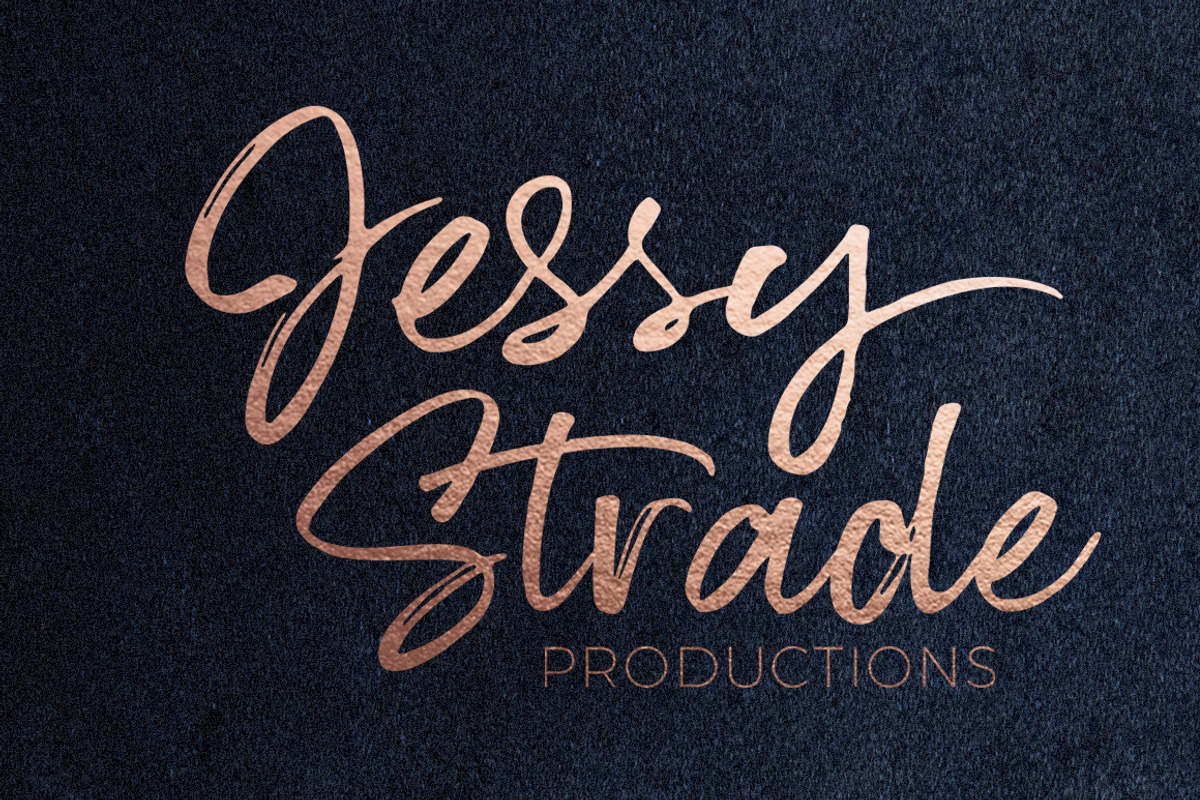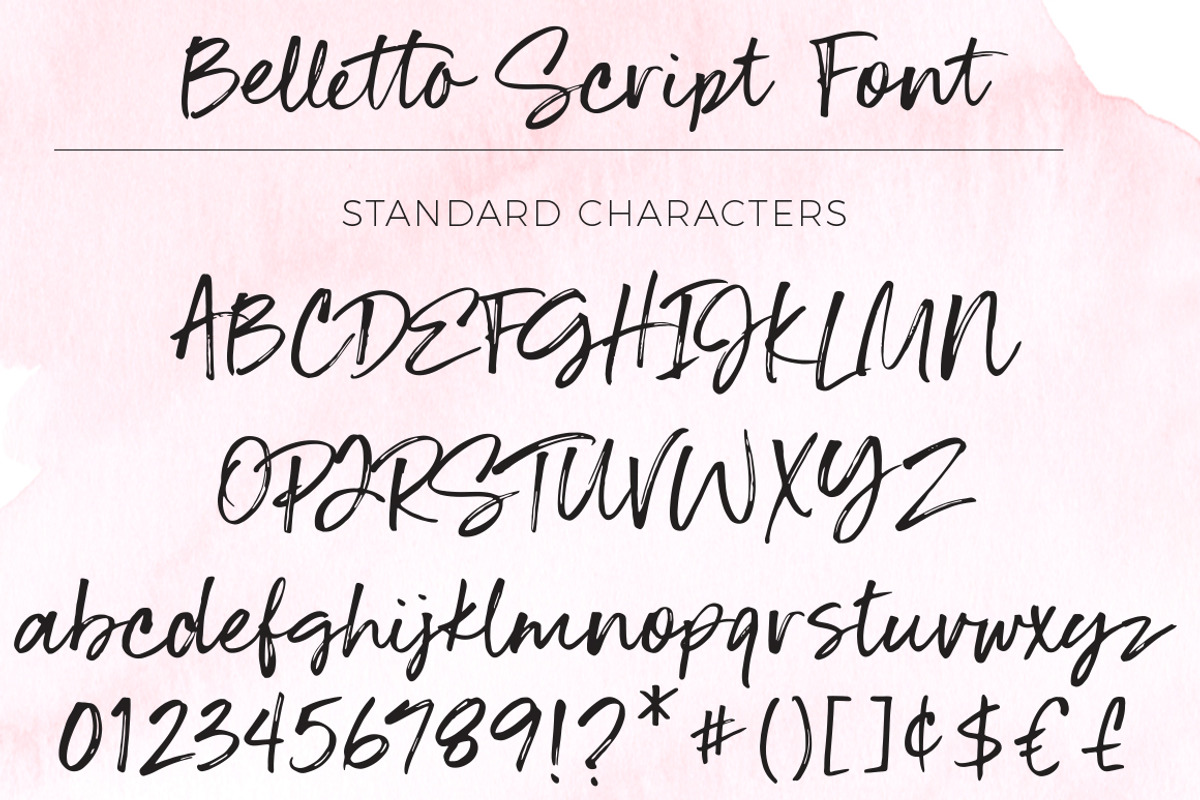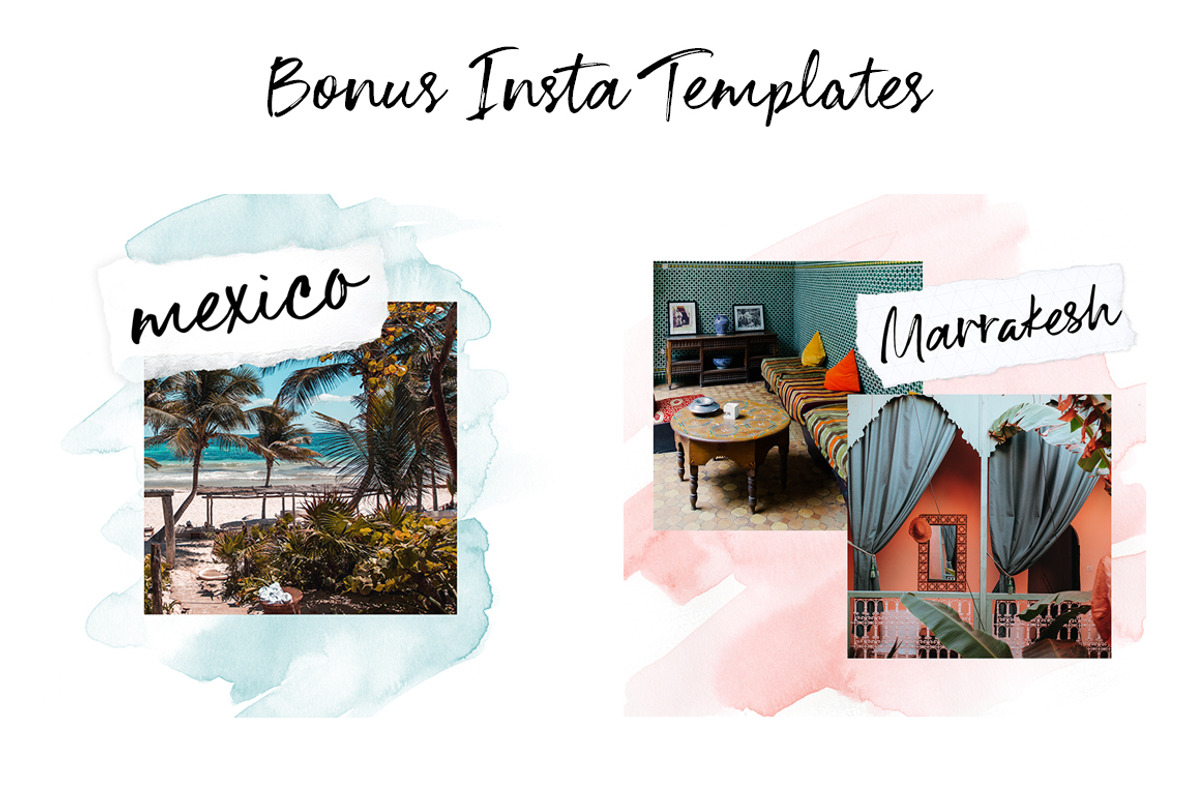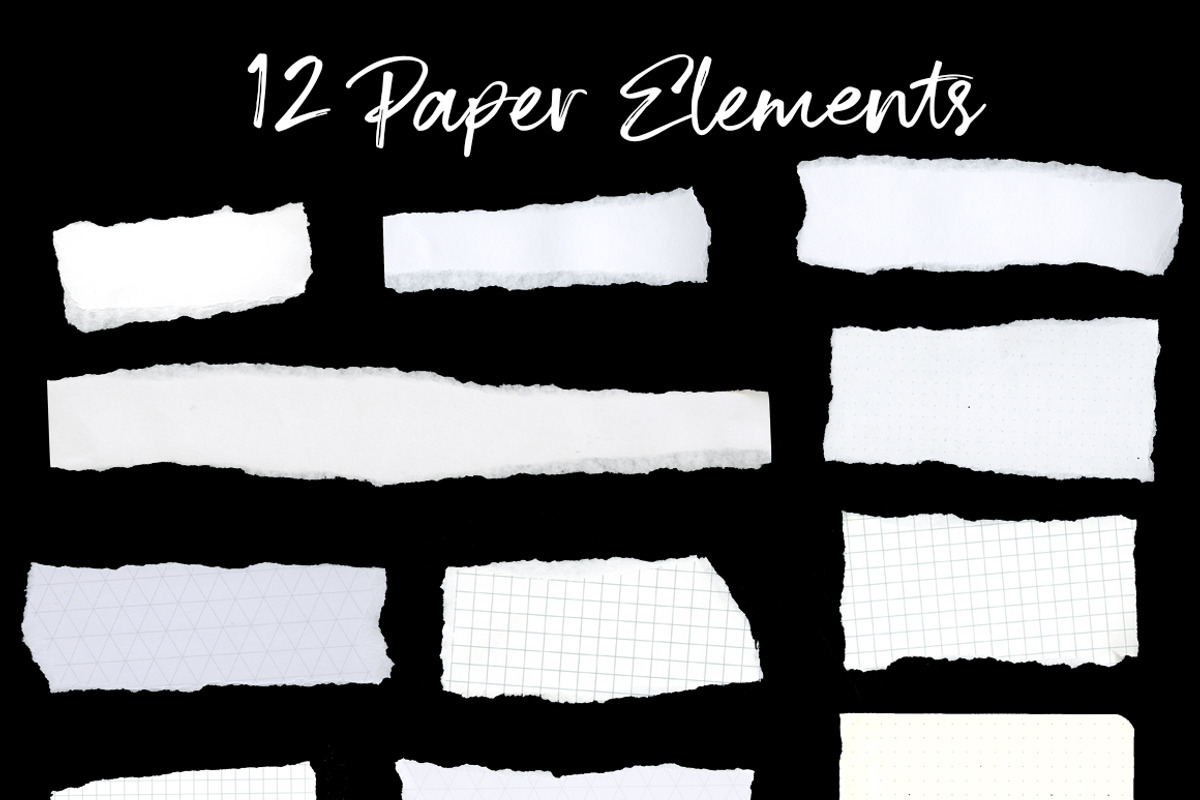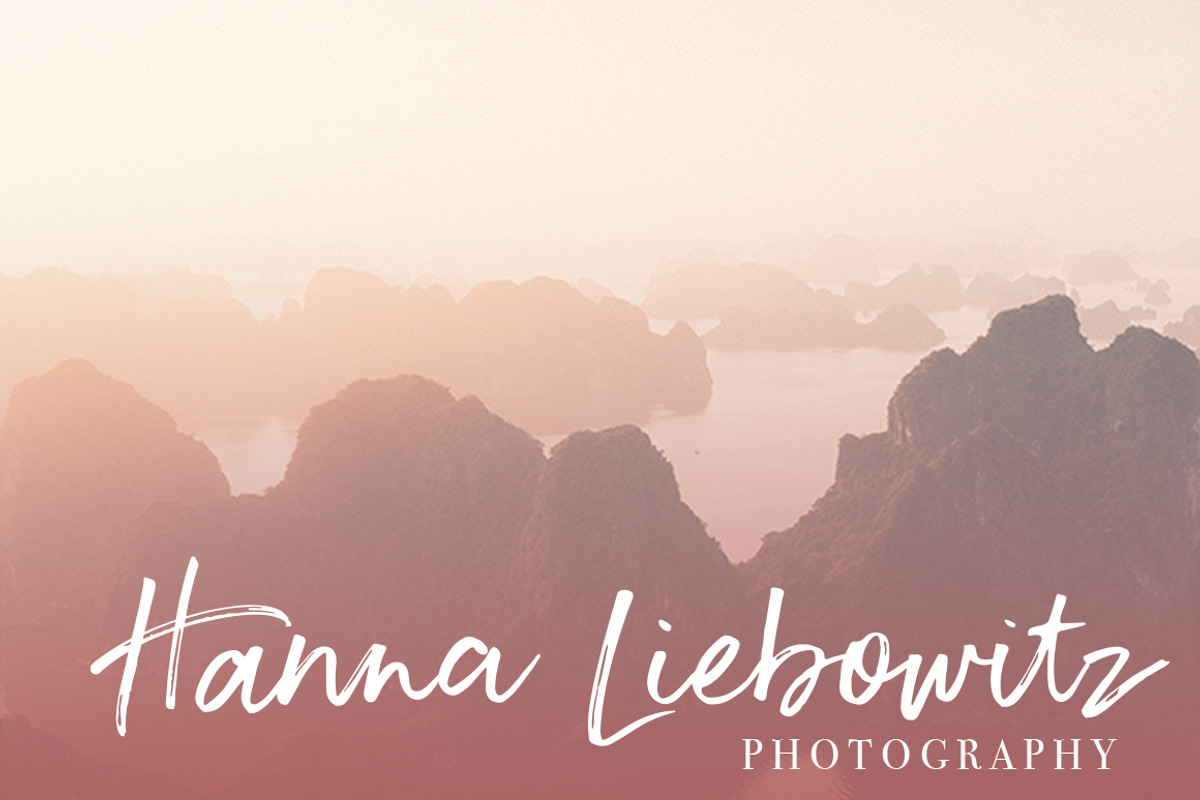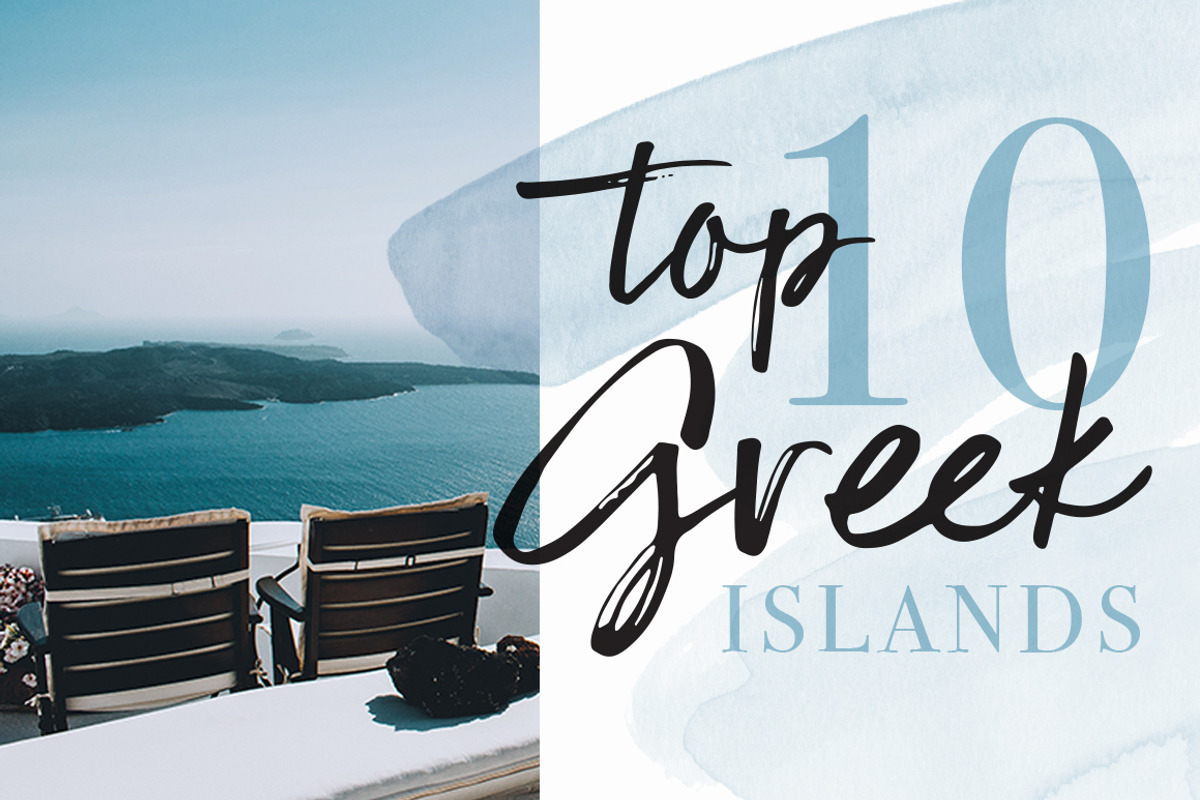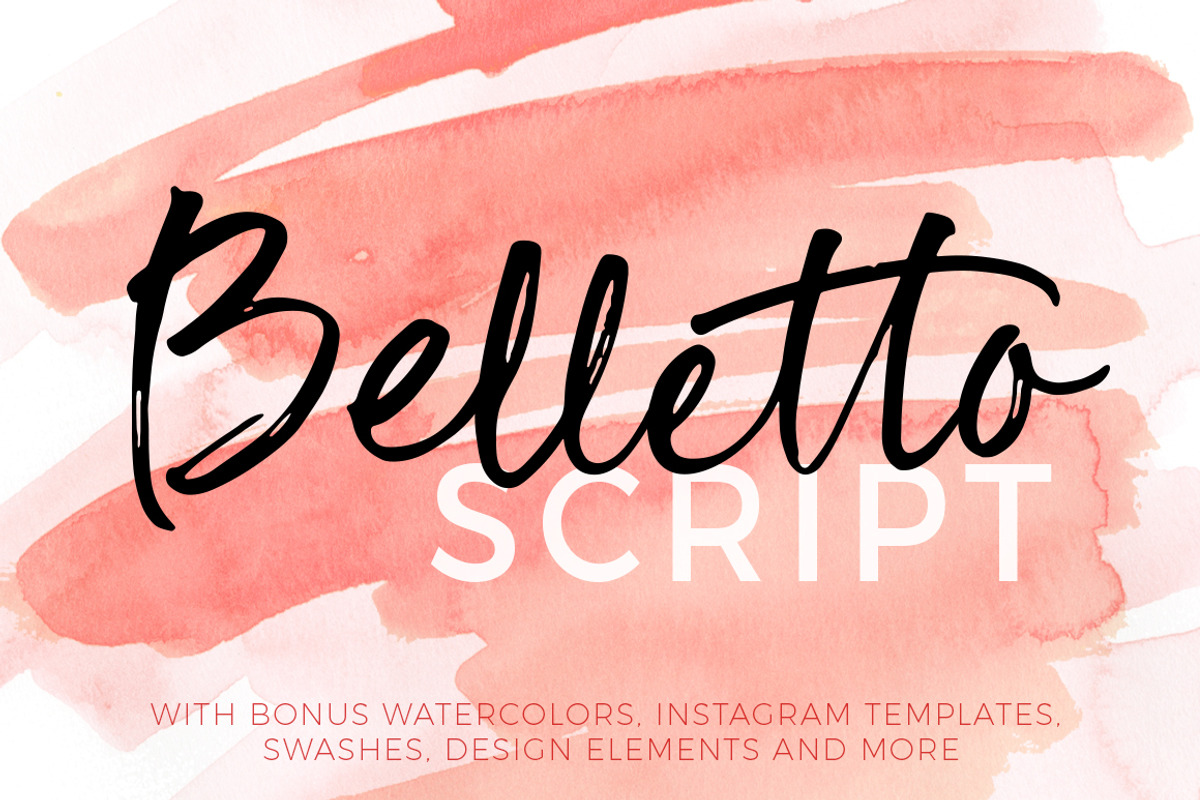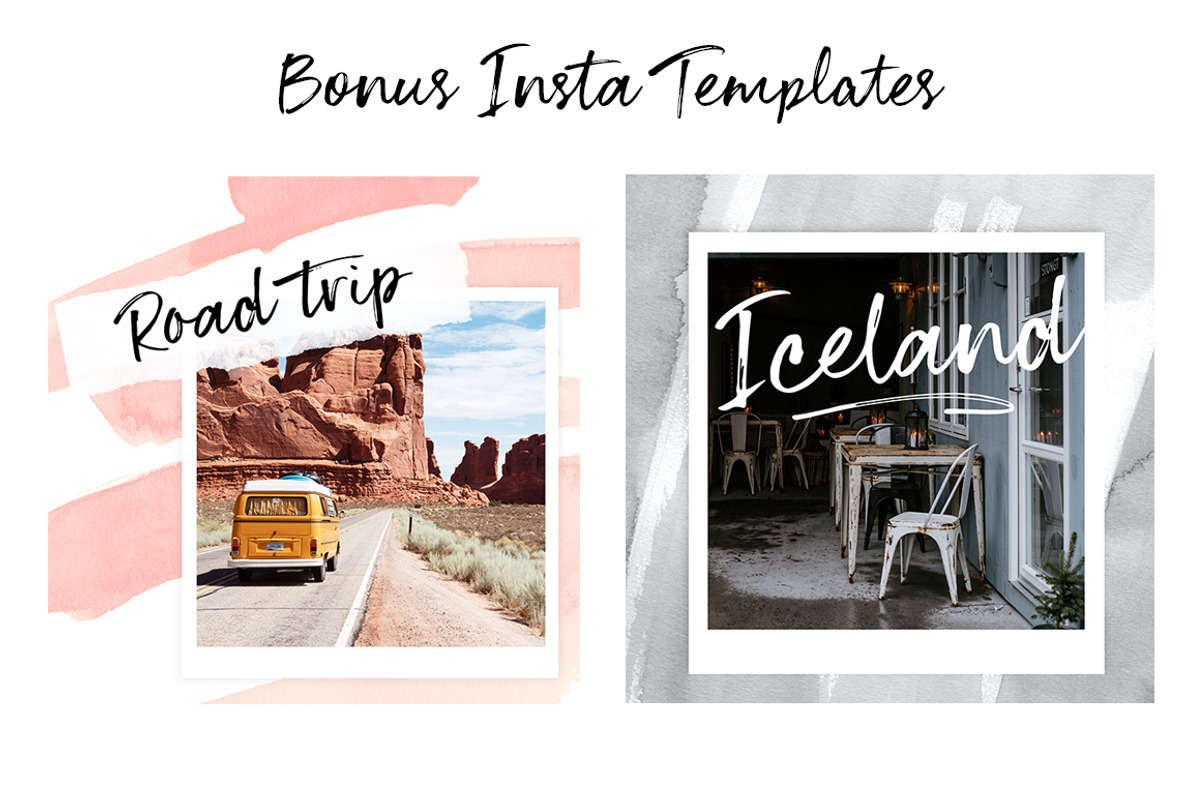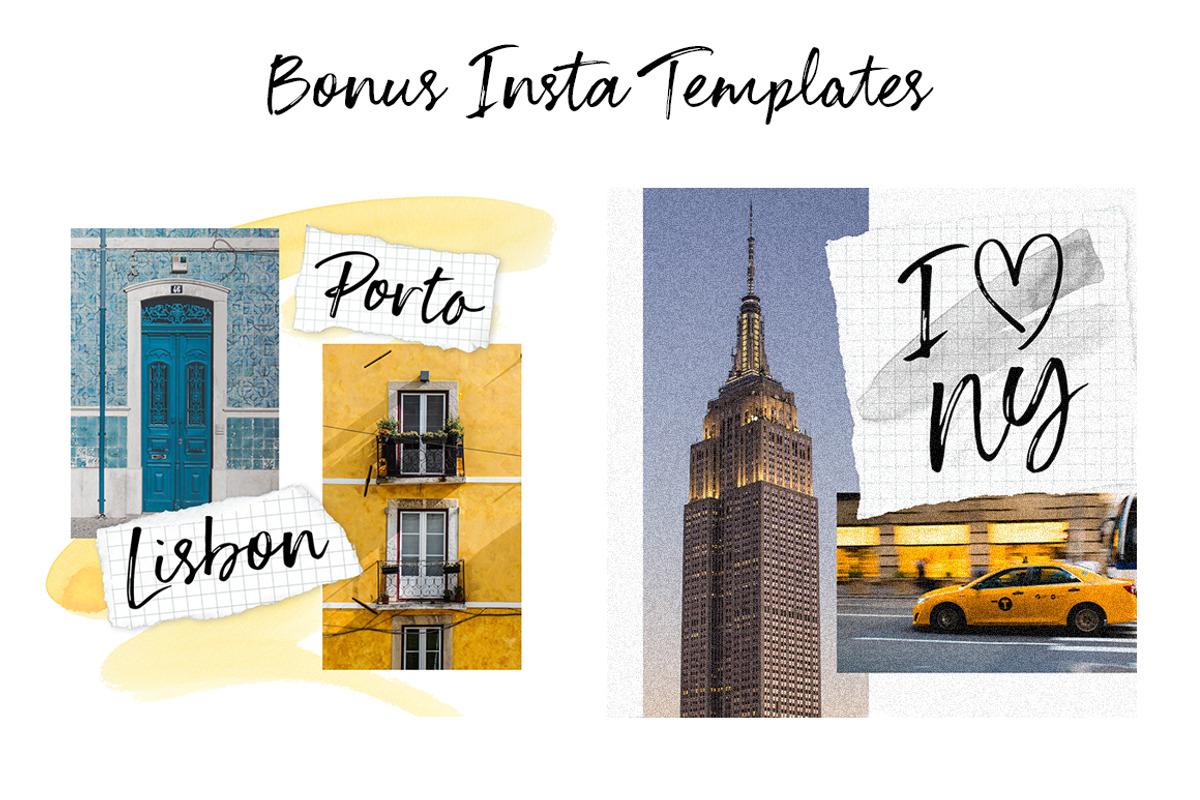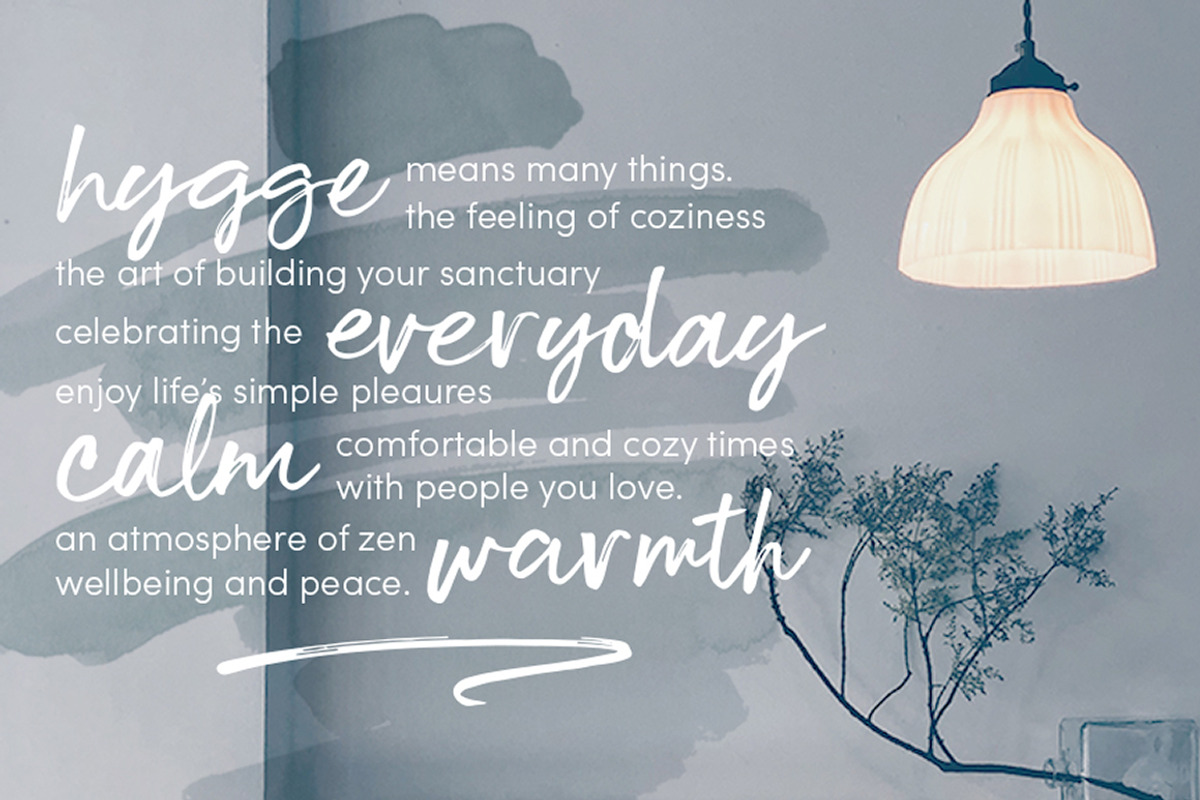
Belletto Script
BELLETTO SCRIPT with BONUS Instagram templates, watercolor backgrounds, paper elements, swashes and more.
Introducing Belletto Script Font, a casual, spontaneous brushy script. It has a two complete sets of characters and extras for commonly used letters to give an authentic hand lettered look to your project. Belletta is Italian for "blush" and its namesake can be soft and pretty or bold and statement making. Check out the previews to see everything that is included.
- 53 Ligatures
- 15 Swashes